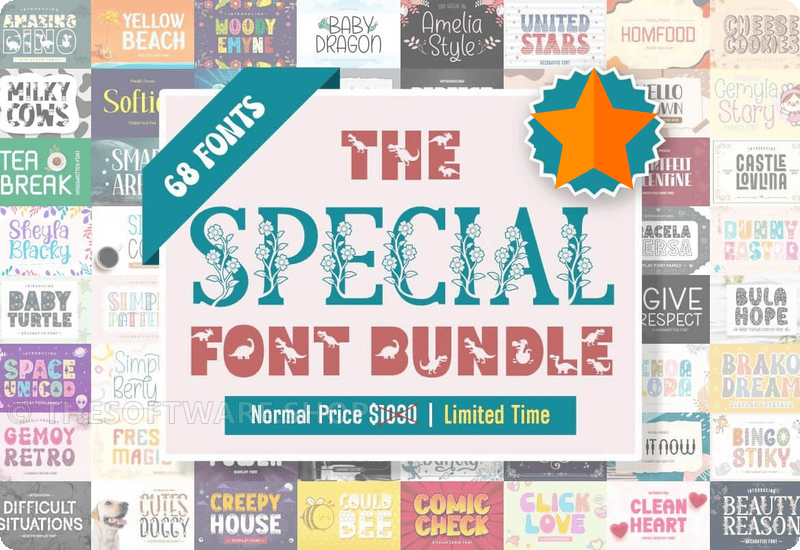
Design enthusiasts and professionals, get ready to elevate your typography game without spending a dime! Eightde has just unleashed an incredible deal that’s too good to pass up – a Special Font Bundle with a staggering value of $1030 is now available for FREE. This comprehensive bundle includes 68 unique fonts, ranging from the sleek and modern sans serifs to expressive handwritten styles.
Unboxing the Special Font Bundle:
Eightde’s font bundle offers a plethora of styles catering to every design need. From the quirky charm of ‘Comic Check’ to the elegance of ‘Eanby Serif,’ these fonts are crafted to make your words stand out. Imagine sprucing up your branding materials with ‘Single Coffee Script’ or capturing the essence of the digital age with ‘Neon Triper.’ The ‘Baby Dragon’ and ‘Woody Emyne’ inject playful delight into children’s books or birthday invitations, while ‘United Stars’ and ‘Simple Pattern’ speak to more geometric and abstract applications.
Moreover, this bundle is not just about varied typefaces – it’s about equipping you with a diverse toolbox for any message and mood. Want to create something that feels personal and intimate? ‘Amazing Dino’ and ‘Inner Love’ are just what you need. Need to add a professional flair to business collateral? ‘Perfect Capital’ and ‘Simple Berlyn’ have you covered. And for festive occasions, ‘Sweety Christmas’ and ‘Jingle Noels’ will add seasonal cheer to your designs.
• Could Bee Decorative Font
• Neon Triper Decorative Font
• Comic Check Display Font
• Show Comic Display Font
• Single Coffee Script & Handwritten Font
• United Stars Decoratieve Fonts Font
• Clean Heart Display Font
• Simple Pattern Decorative Font
• Baby Dragon Fontes Script Fonte
• Amazing Dino Decorative Font
• Beauty Reason Decorative Font
• Eanby Serif Font
• Point Notes Script Fonts Font
• Cemyla Story Font Serif Font
• Perfect Capital Slab Serif Font
• Space Unicod Decorative Font
• Simple Berlyn Script & Handwritten Font
• Exclusive Workplace Script & Handwritten Font
• Winter Snowby Decorative Font
• Inner Love Decorative Font
• Bingo Stiky Dekorative Schriftarten Schriftart
• Shalye Script & Handwritten Font
• Cutes Doggy Decorative Font
• Sheyla Blacky Script & Handwritten Font
• Bunny Easter Decorative Font
• Smart Arena Display Font
• Mecomic Display Font
• Bula Hope Font Decorativi Font
• Give Respect Script & Handwritten Font
• Woody Emyne Decorative Font
• Sweety Christmas Display Font
• Jingle Noels Decorative Font
• Yellow Beach Sans Serif Font
• Click Love Display Font
• Gemoy Retro Display Font
• Hello Brown Script & Handwritten Font
• Nice Fashion Sans Serif Font
• Genoa Flora Decorative Font
• Castle Lovlina Display Font
• Miracle Future Serif Font
• Emika Danely Script & Handwritten Font
• Gracela Mersa Decorative Font
• Meria Story Display Font
• Brako Dream Display Font
• Love Behind Skript-Schriftarten Schriftart
• Quick Beauty Script & Handwritten Font
• Kinof Joice Fontes de Exibição Fonte
• Difficult Situations Display Font
• Creepy House Display Font
• Share Ideas Display Font
• Amelia Style Script & Handwritten Font
• Aroma Lovers Display Font
• Softidy Serif Font
• Magic Love Font Decorativi Font
• Monela Decorative Font
• Heartfelt Valentine Sans Serif Font
• Valentine Friendship Script & Handwritten Font
• Milky Cows Decorative Font
• Baby Turtle Decorative Font
• Do It Now Fuentes Sans Serif Fuente
• Maunika Display Font
• Unhit Display Font
• First Power Display Font
• Cheese Cookies Decorative Font
• Fresh Magic Display Font
• Homfood Script & Handwritten Font
• Tea Break Script & Handwritten Font
• Sports Strong Display Font